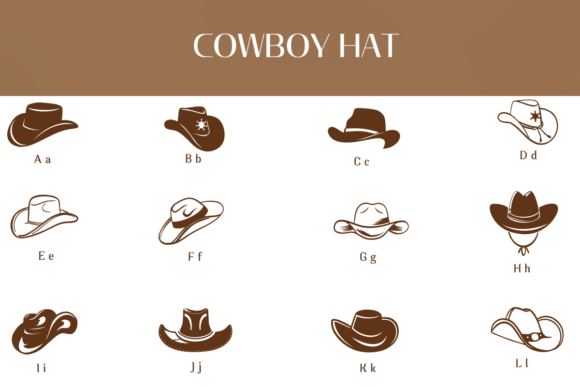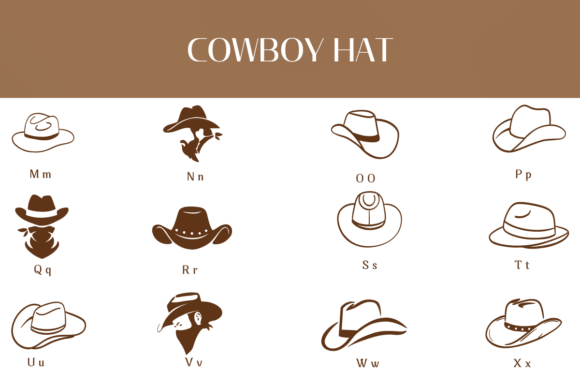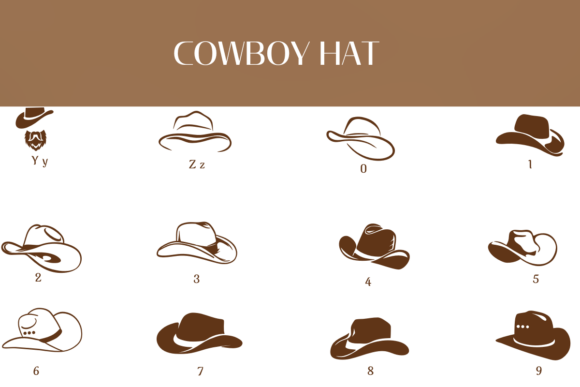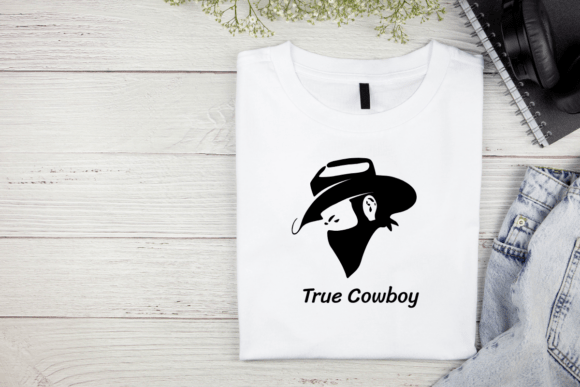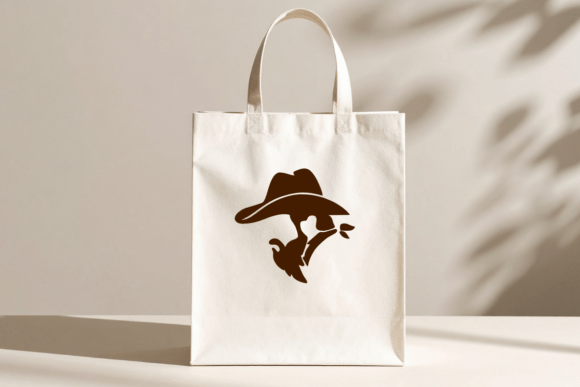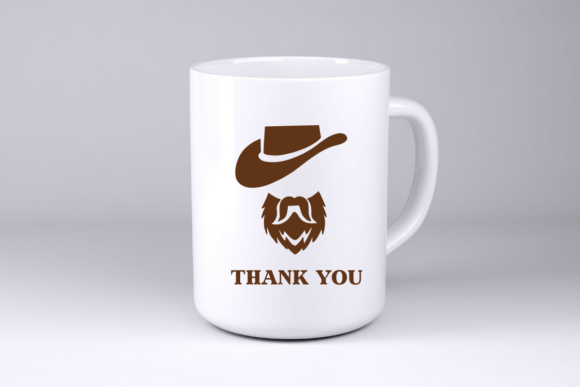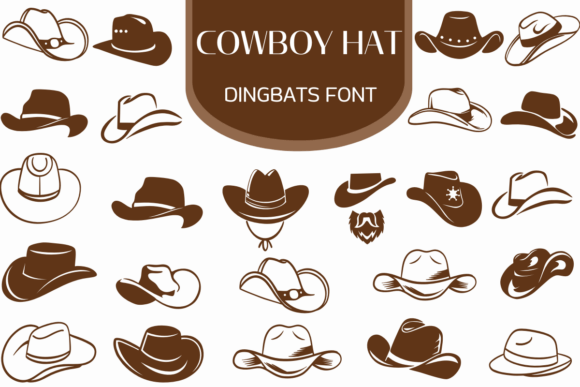
Cowboy Hat Font: Add a Touch of Wild West Charm to Your Designs
Are you looking for a unique and stylish way to add a rustic, adventurous vibe to your creative projects? Look no further than the Cowboy Hat Font, a one-of-a-kind dingbat font featuring a wide variety of cowboy hat silhouettes. With its bold, clean designs and versatile style, this font is perfect for designers, crafters, and anyone looking to bring a touch of the Wild West into their work.
What is Cowboy Hat Dingbats?
Cowboy Hat Dingbats is a unique and stylish dingbat font that features a wide range of cowboy hat silhouettes. From classic wide-brimmed designs to playful Western-inspired variations, each glyph captures the rugged charm of cowboy culture. With over 25 cowboy hat icons in various styles, this font is perfect for adding a touch of Americana to your designs.
Key Features of Cowboy Hat Dingbats
• 25+ cowboy hat icons: With a wide variety of cowboy hat silhouettes to choose from, you’ll find the perfect design to fit your project’s needs.
• Bold, clean silhouettes: The Cowboy Hat Dingbats font features bold, clean designs that are perfect for use in a variety of applications, from posters and party invitations to apparel and crafts.
• Perfect for Western designs: Whether you’re designing for a rodeo event, Western-themed party, or simply want to add a touch of the Wild West to your work, this font is the perfect choice.
Uses for Cowboy Hat Dingbats
The Cowboy Hat Dingbats font is incredibly versatile and can be used in a wide range of applications, including:
• Posters and flyers: Add a touch of the Wild West to your posters and flyers with this unique and stylish font.
• Western-themed events: Use Cowboy Hat Dingbats to create eye-catching invitations, banners, and signage for rodeo events, Western-themed parties, and more.
• Apparel and T-shirt prints: Add a rustic, adventurous vibe to your apparel and T-shirt designs with this bold and stylish font.
• Stickers and crafts: Use Cowboy Hat Dingbats to create custom stickers, decals, and crafts that are perfect for adding a touch of personality to your projects.
• Digital designs and packaging: Incorporate this font into your digital designs and packaging to add a unique and stylish touch.
• Experiment with different styles: With over 25 cowboy hat icons to choose from, don’t be afraid to experiment with different styles to find the perfect fit for your project.
• Mix and match: Combine Cowboy Hat Dingbats with other fonts and design elements to create a unique and eye-catching design.
• Use in combination with other Western-themed elements: Use Cowboy Hat Dingbats in combination with other Western-themed elements, such as bandannas, cacti, and horses, to create a cohesive and stylish design.